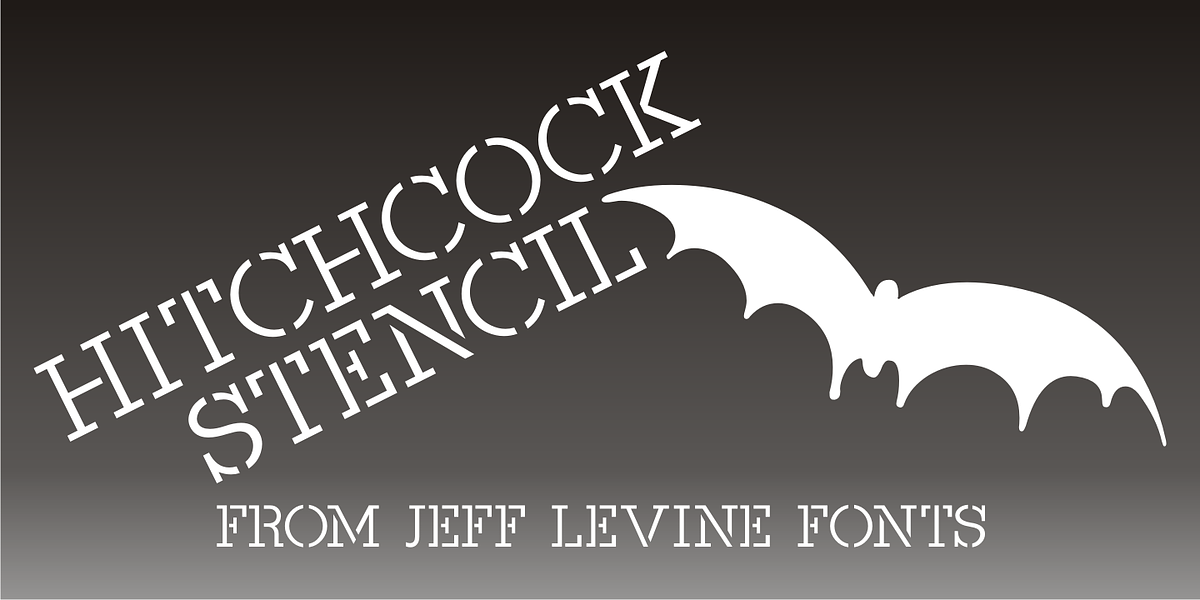
Hitchcock Stencil JNL
Hand-lettered stencil lettering on the movie poster for Alfred Hitchcockís 1955 dark comedy-thriller "The Trouble with Harry" inspired Hitchcock Stencil JNL; named in honor of the great master of suspense cinema.